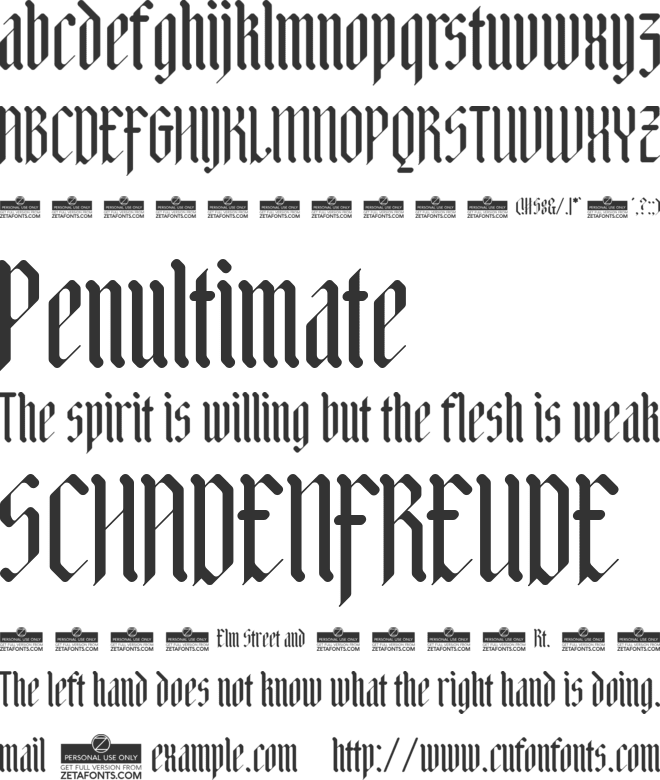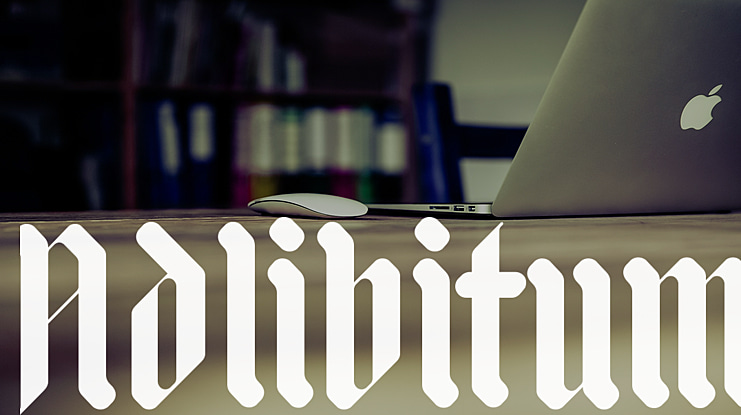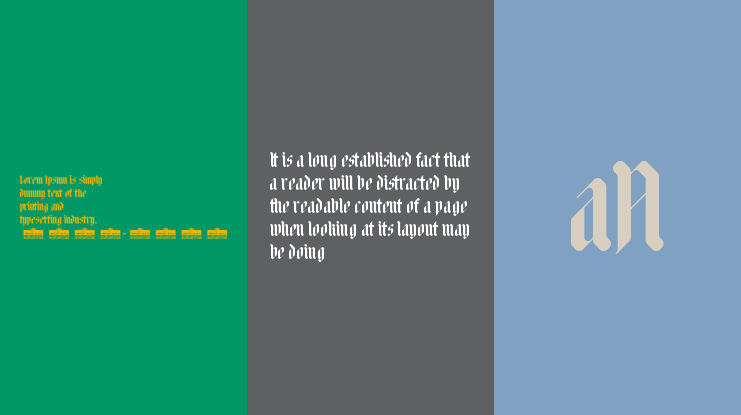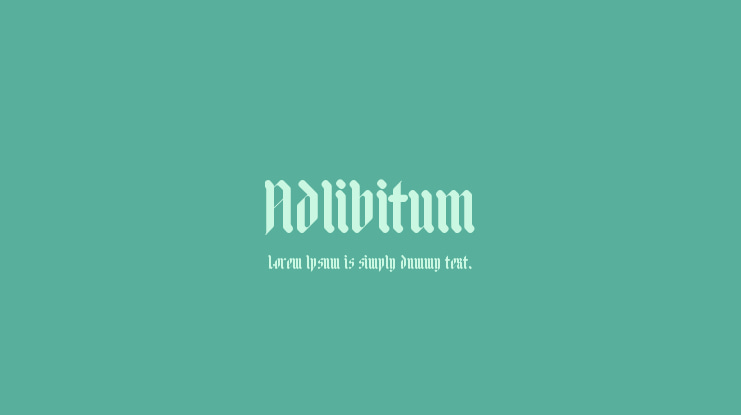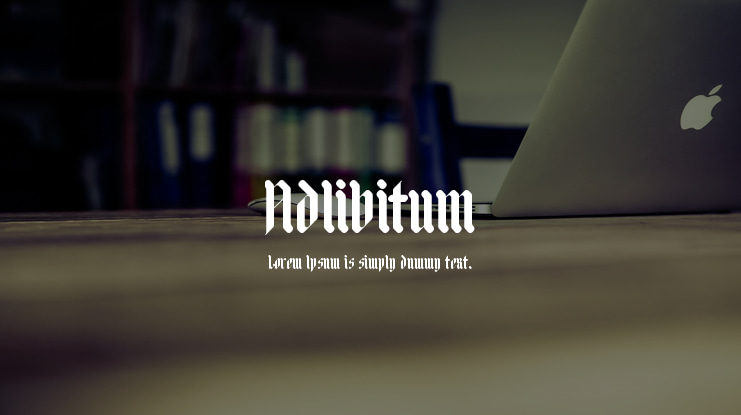
Francesco Canovaro, Cosimo Lorenzo Pancini
Designed by Francesco Canovaro, Adlibitum is a display typeface designed as a contemporary restyling of old textura medieval script characters. It features a strong vertical accent and a geometric design, with 45 degrees angles and soft round corners. It comes in three weights and features an extended character set with support for European languages, and open type support for ligatures.